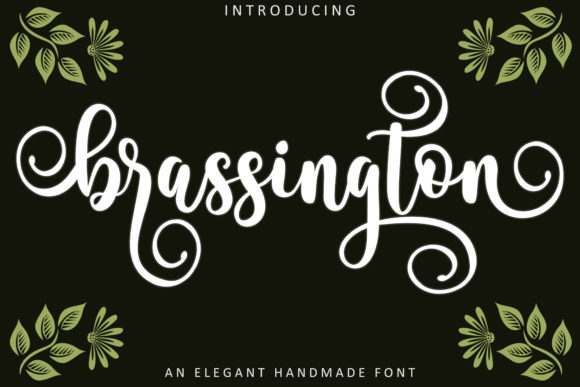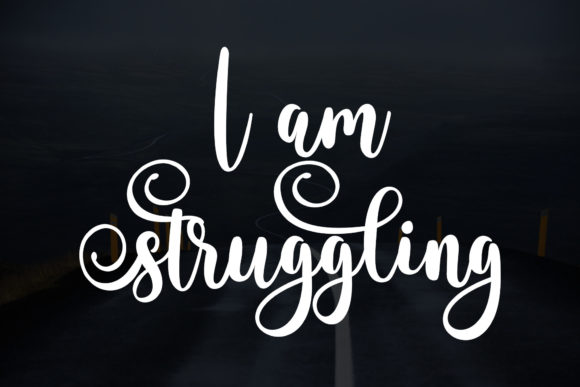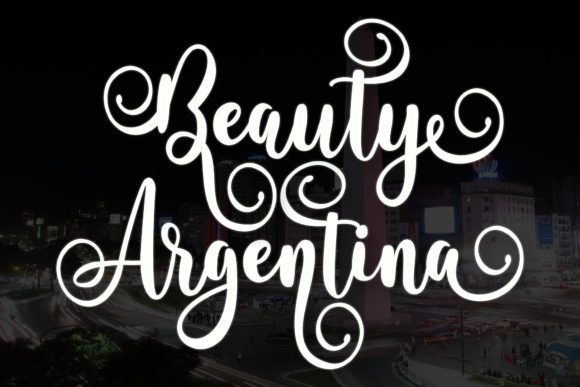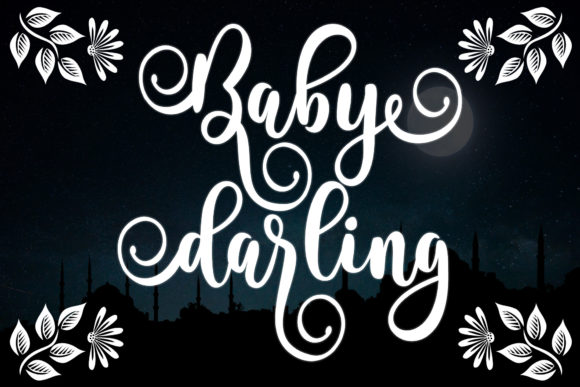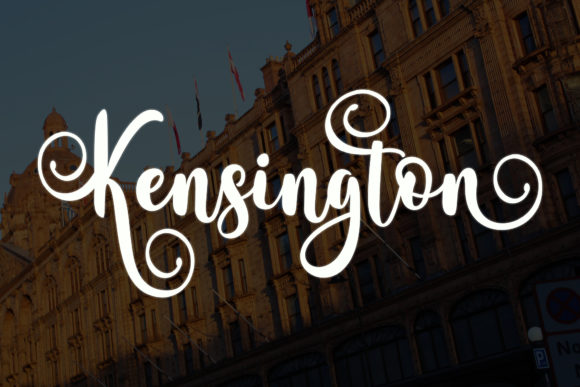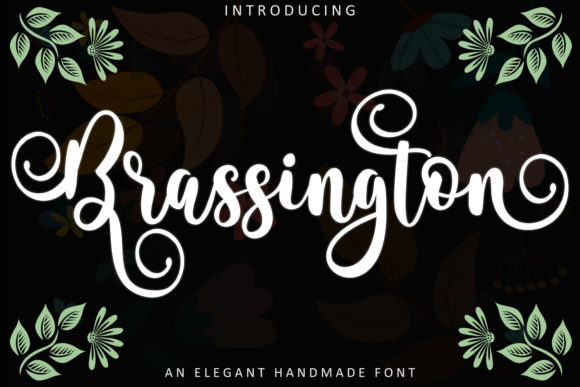
Discover the Elegance of Brassington Font: A Lovely Script Font for Your Designs
Are you looking for a font that exudes elegance and class for your designs? Look no further than the Brassington Font. This lovely and delicate script font is perfect for those who want to add a touch of sophistication and refinement to their work. In this article, we’ll explore the features and benefits of the Brassington Font, and why it’s a must-have for designers and crafters.
What is Brassington Font?
Brassington Font is a beautifully crafted script font that is designed to add a touch of elegance and class to your designs. With its delicate lines and curves, this font is perfect for creating stunning text-based designs that are sure to impress. Whether you’re working on a branding project, a wedding invitation, or a craft project, Brassington Font is the perfect choice.
Features of Brassington Font
So, what makes Brassington Font so special? Here are just a few of its key features:
- Lovely and Delicate Design: Brassington Font features a beautiful, delicate design that is perfect for creating elegant and sophisticated text-based designs.
- PUA Encoded: This font is PUA (Private Use Area) encoded, which means that you can access all of the glyphs and swashes with ease. This makes it easy to customize your designs and add your own personal touch.
- Elegant and Classy: Brassington Font exudes elegance and class, making it perfect for designs that require a touch of sophistication.
Benefits of Using Brassington Font
So, why should you choose Brassington Font for your designs? Here are just a few of the benefits of using this lovely script font:
- Adds Elegance and Class: Brassington Font adds a touch of elegance and class to your designs, making them stand out from the crowd.
- Perfect for Branding and Advertising: This font is perfect for branding and advertising projects that require a sophisticated and elegant look.
- Great for Wedding and Event Invitations: Brassington Font is also great for wedding and event invitations, adding a touch of romance and elegance to your designs.
- Versatile: This font is versatile and can be used for a wide range of design projects, from digital designs to print projects.
Tips and Tricks for Using Brassington Font
Here are a few tips and tricks for using Brassington Font:
- Use it with Other Fonts: Brassington Font pairs well with other fonts, such as sans serif fonts and serif fonts.
- Play with Glyphs and Swashes: Play with the font’s glyphs and swashes to add a personal touch to your design.
| Font Name | Brassington Font |
| Author | Coretanletter |
In conclusion, Brassington Font is a lovely and delicate script font that exudes elegance and class. With its PUA encoded feature, easy-to-use design, and elegant look, it’s perfect for designers and crafters who want to add a touch of sophistication to their work. Whether you’re working on a branding project, a wedding invitation, or a craft project, Brassington Font is a must-have font that is sure to impress.